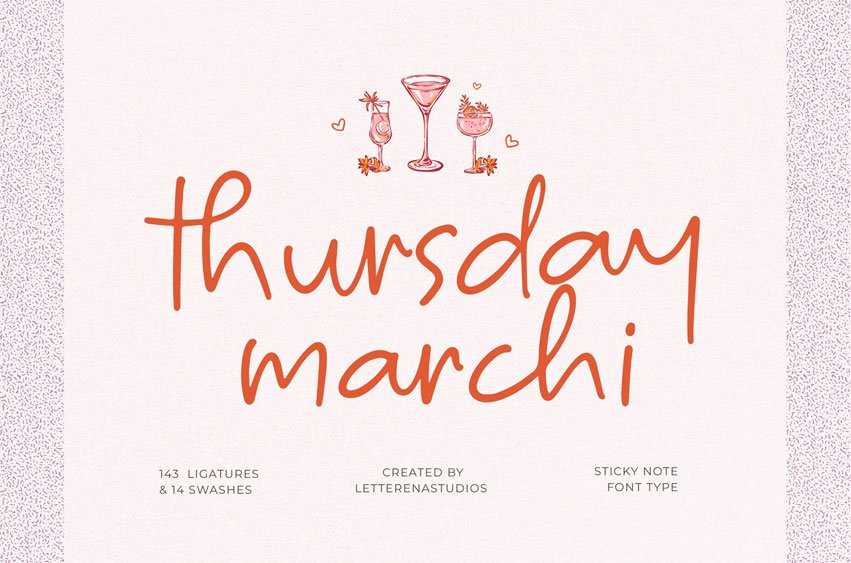
Thursday Marchi Font is suitable to complement your digital and printed creative products. This font is perfect for posters, social media posts, branding, personal projects, etc.